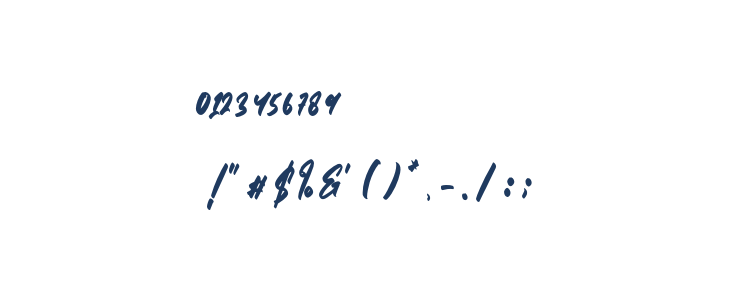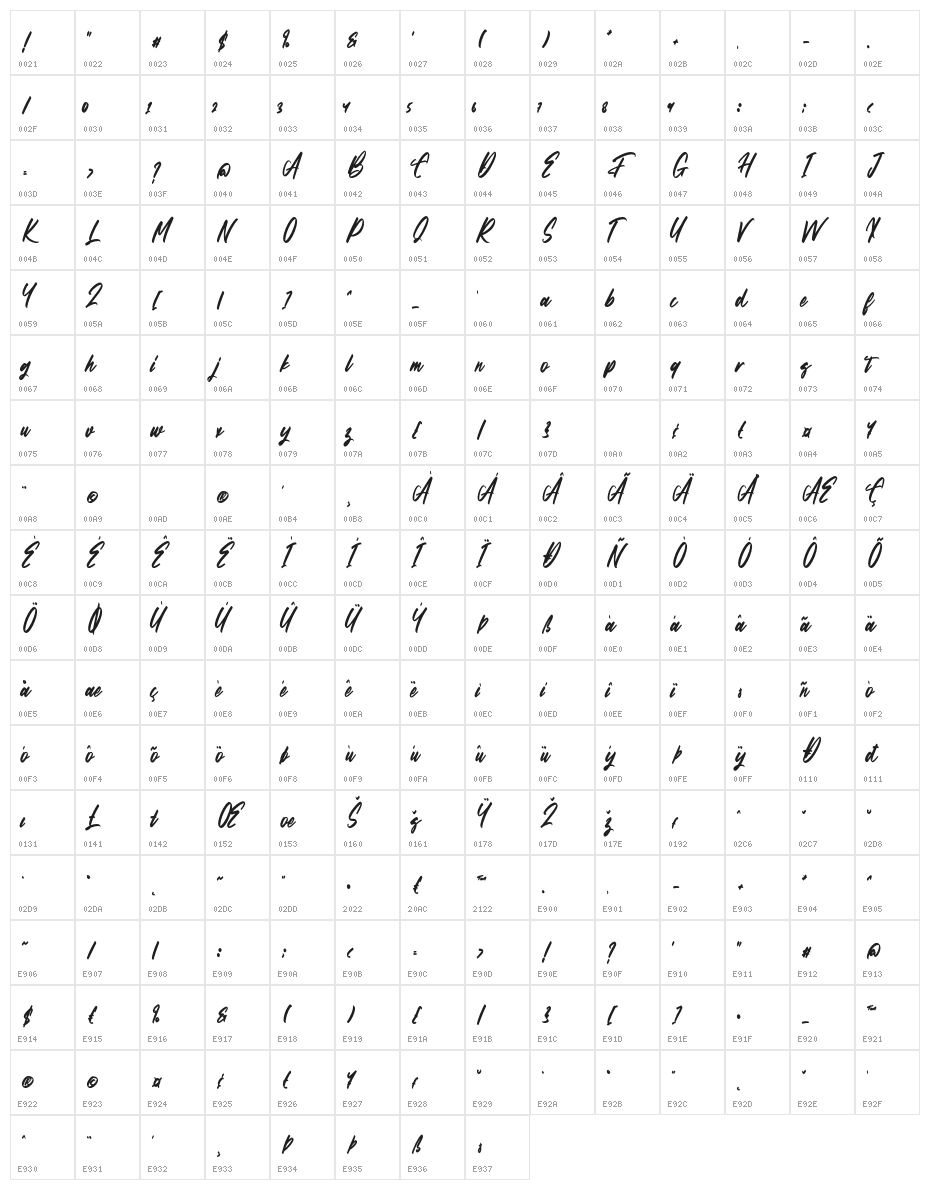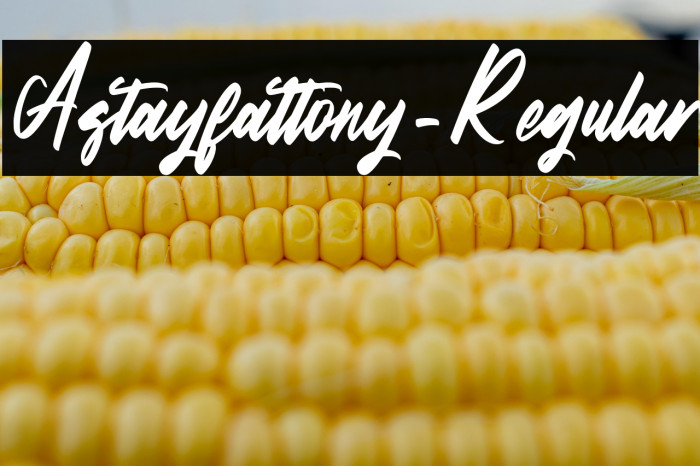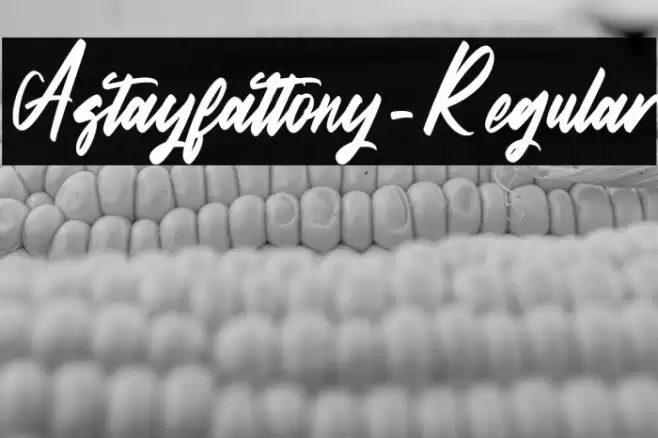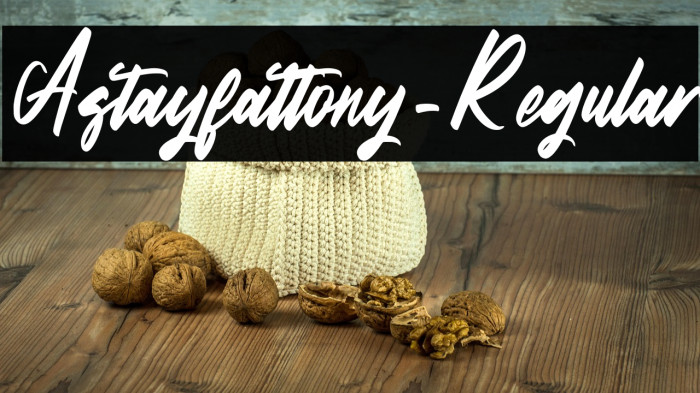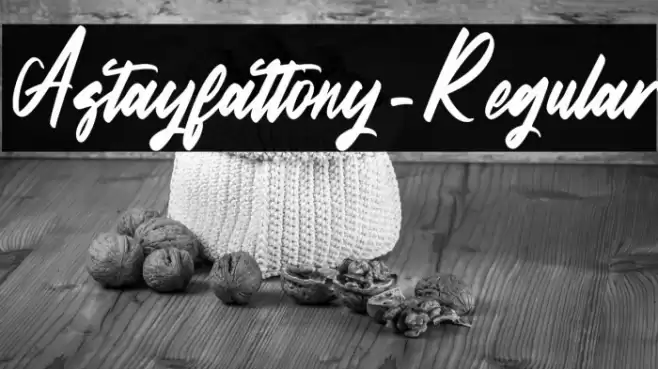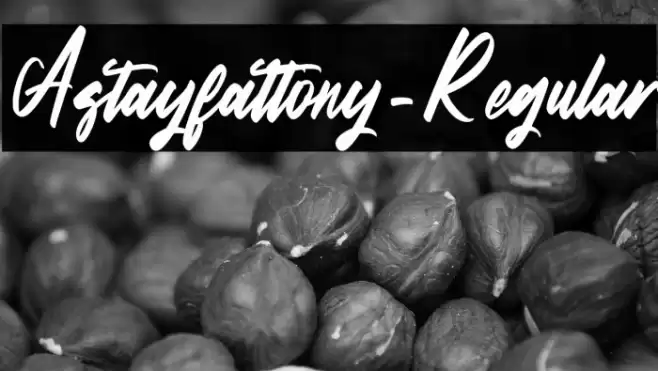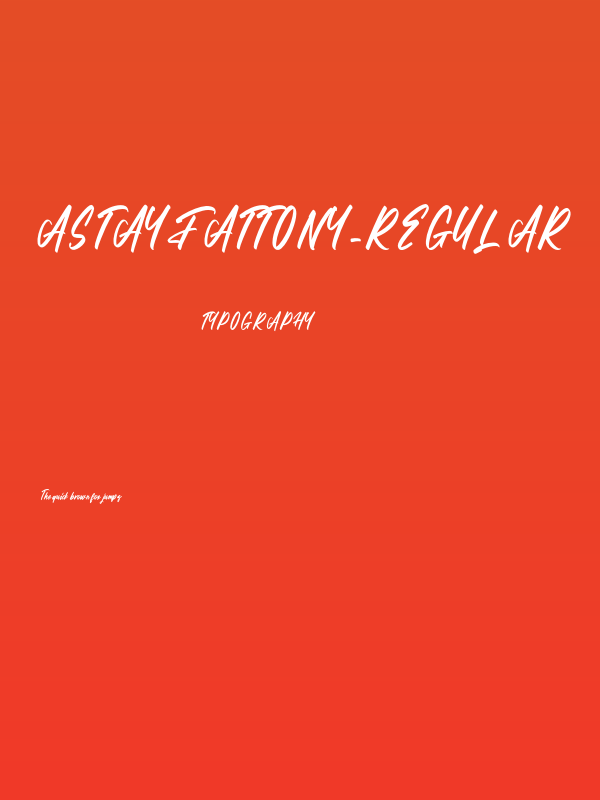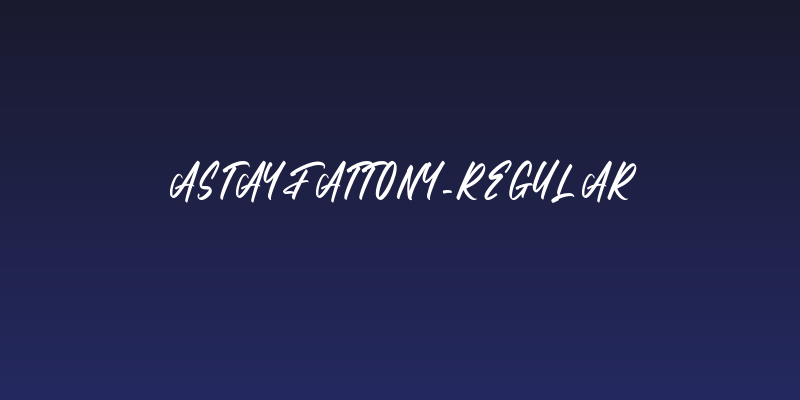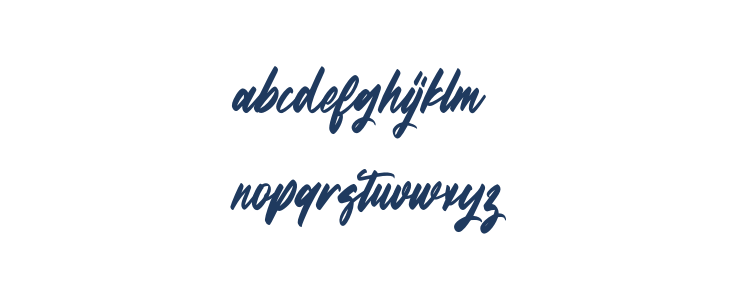
Astayfattony-Regular Font
Astayfattony-Regular Description
This font features a dynamic and flowing script style with a handwritten appearance. The characters are connected with smooth, elegant curves, giving it a personal and artistic touch. The uppercase letters are bold and slightly slanted, while the lowercase letters maintain a consistent flow, enhancing readability. The numbers and special characters follow the same fluid style, making them cohesive with the rest of the font. This font exudes a sense of creativity and expressiveness, suitable for projects that require a personal or artistic flair.